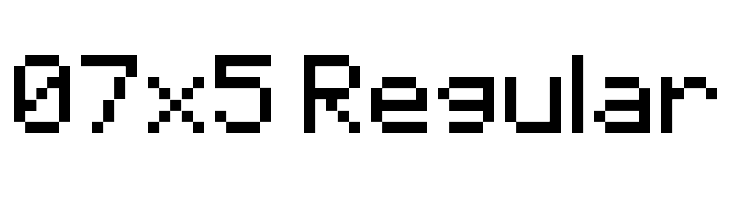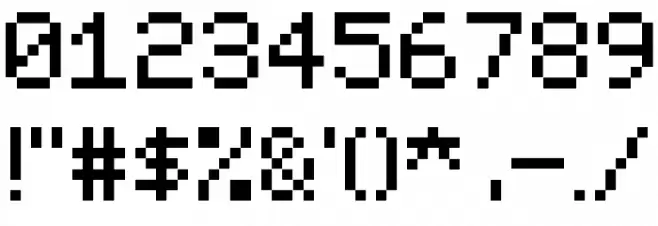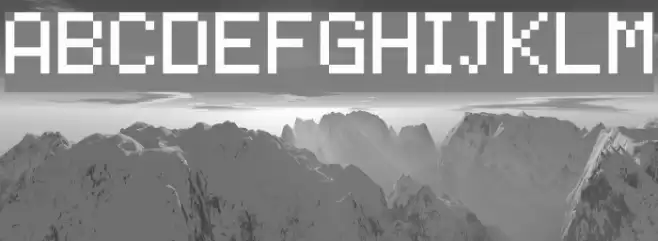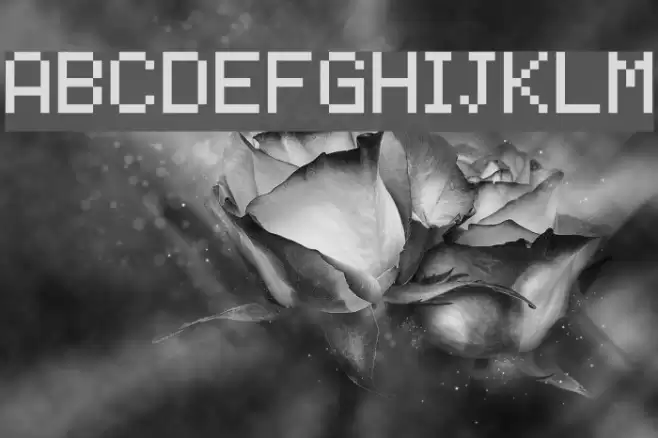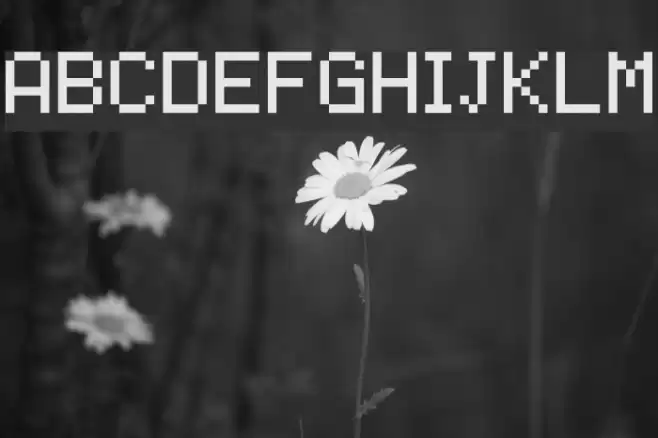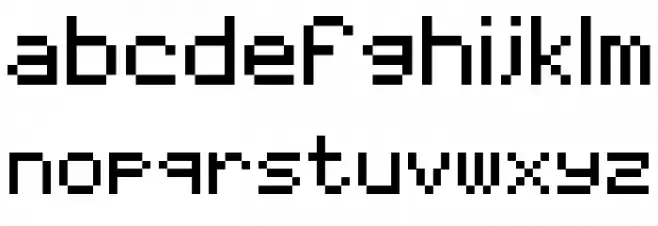
07x5 Regular Font
| समग्र शैली | Retro, Digital |
| उपयोग का मामला | Headlines, Logos, Digital displays |
| सुझाए गए प्रोजेक्ट | Ideal for retro video games, digital art projects, tech-themed designs, and nostalgic branding. |